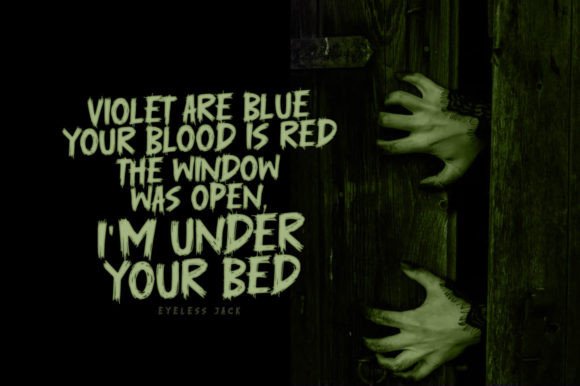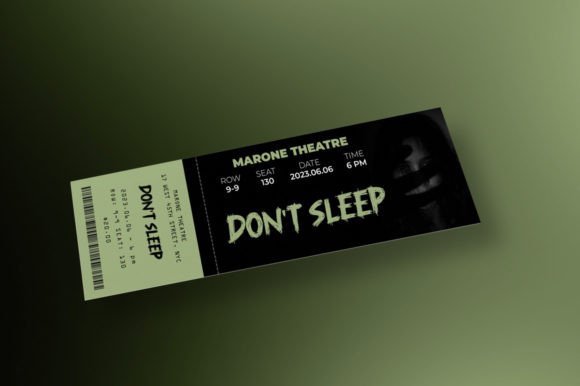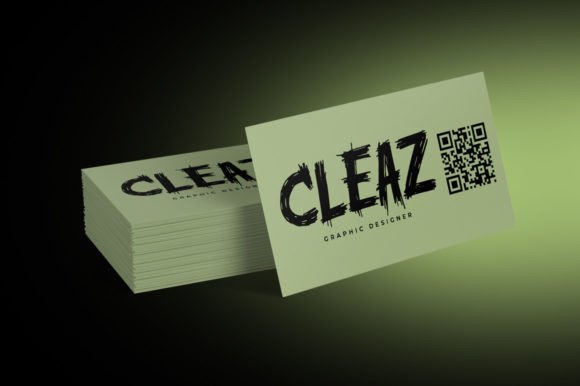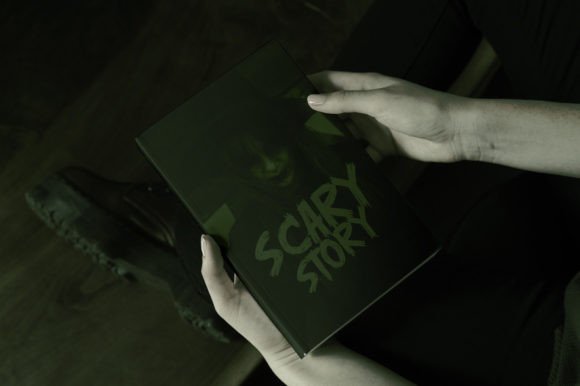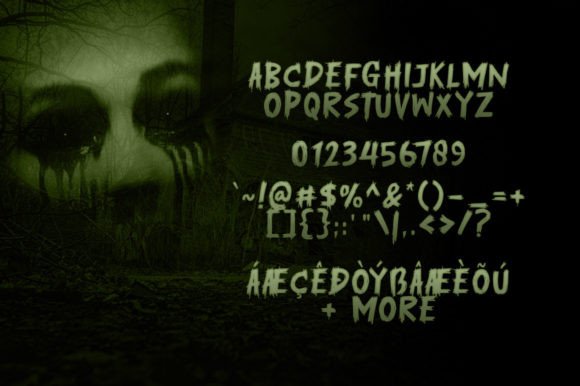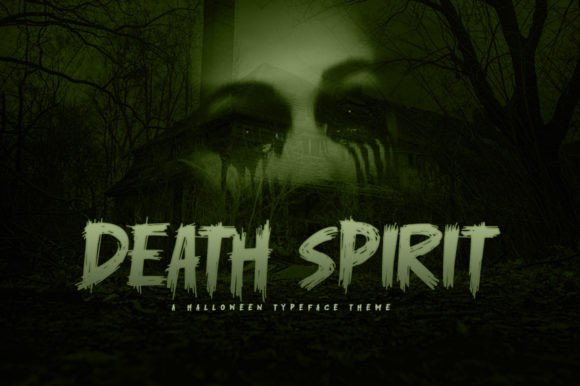
Unleash the Terror with Death Spirit Font: The Ultimate Display Horror Font for Halloween
Are you looking for a font that will add a spooky touch to your Halloween projects? Look no further than the Death Spirit font, a display horror font designed to send chills down the spine. This font is perfect for designers and crafters who want to create a haunting atmosphere in their work, and it’s versatile enough to be used in a variety of projects.
What is Death Spirit Font?
Death Spirit font is a specially designed display font that embodies the spirit of Halloween. Its unique and eerie design makes it perfect for creating a horror-themed project that will leave a lasting impression on your audience. The font features twisted and distressed lettering that gives it a haunting look, making it ideal for use in logos, branding, greeting cards, posters, and any other design project that requires a spooky touch.
Why Choose Death Spirit Font?
There are many reasons why Death Spirit font stands out from other fonts, especially when it comes to Halloween-themed projects. Here are a few reasons why you should consider using it in your next design:
• Unique Design: Death Spirit font has a one-of-a-kind design that will make your project stand out from the rest. Its twisted and distressed lettering gives it a haunting look that will leave a lasting impression on your audience.
• Versatility: This font is versatile and can be used in a variety of projects, including logos, branding, greeting cards, posters, and more. It’s perfect for designers and crafters who want to create a cohesive look across multiple projects.
• Halloween-themed: This font is specifically designed for Halloween-themed projects, making it perfect for designers and crafters who want to create spooky and haunting designs.
Ideas for Using Death Spirit Font
Death Spirit font is a versatile font that can be used in a variety of projects. Here are some ideas to get you started:
• Halloween Logos: Use Death Spirit font to create a spooky logo for your Halloween-themed business or project.
• Greeting Cards: Create haunting greeting cards for Halloween using Death Spirit font.
• Posters: Design eye-catching posters for Halloween events or parties using Death Spirit font.
• Branding: Use Death Spirit font to create a cohesive brand identity for your Halloween-themed business or project.
Death Spirit font is a unique and versatile display horror font that’s perfect for Halloween-themed projects. Its twisted and distressed lettering gives it a haunting look that will leave a lasting impression on your audience. Whether you’re a designer or crafter, Death Spirit font is a great addition to your font collection. So, unleash the terror and add Death Spirit font to your creative ideas today!